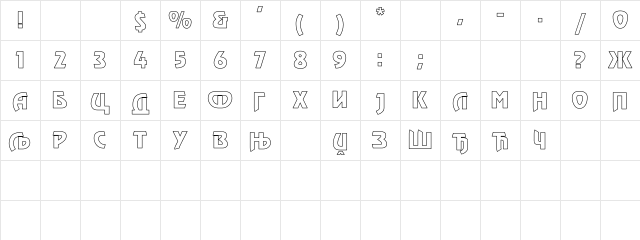
CYRevueR Hollow Regular Free Font
CYRevueR Hollow Regular
Design Context for CYRevueR Hollow
CYRevueR Hollow is a composed and adaptable typeface that performs quietly and consistently across a wide range of design contexts.